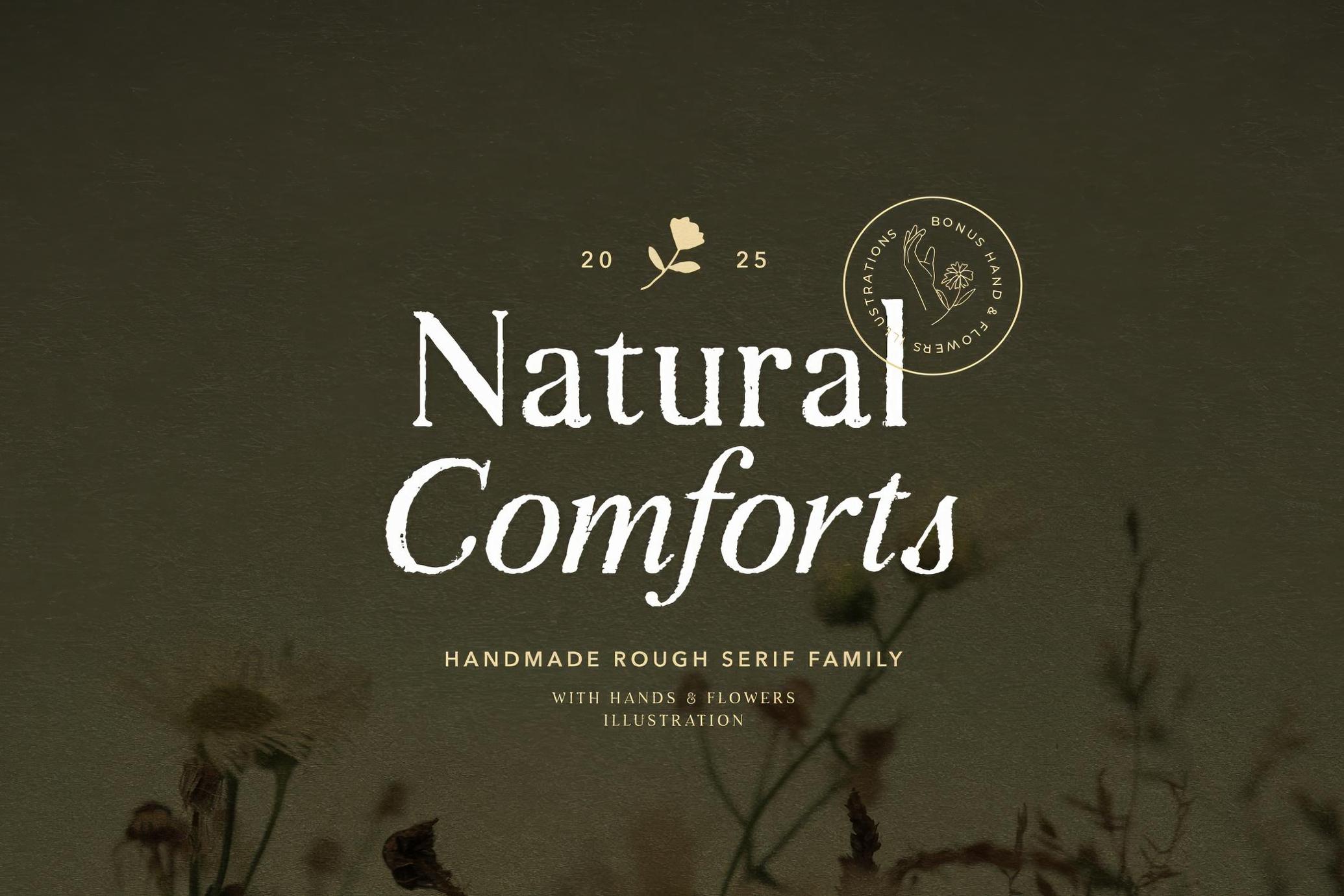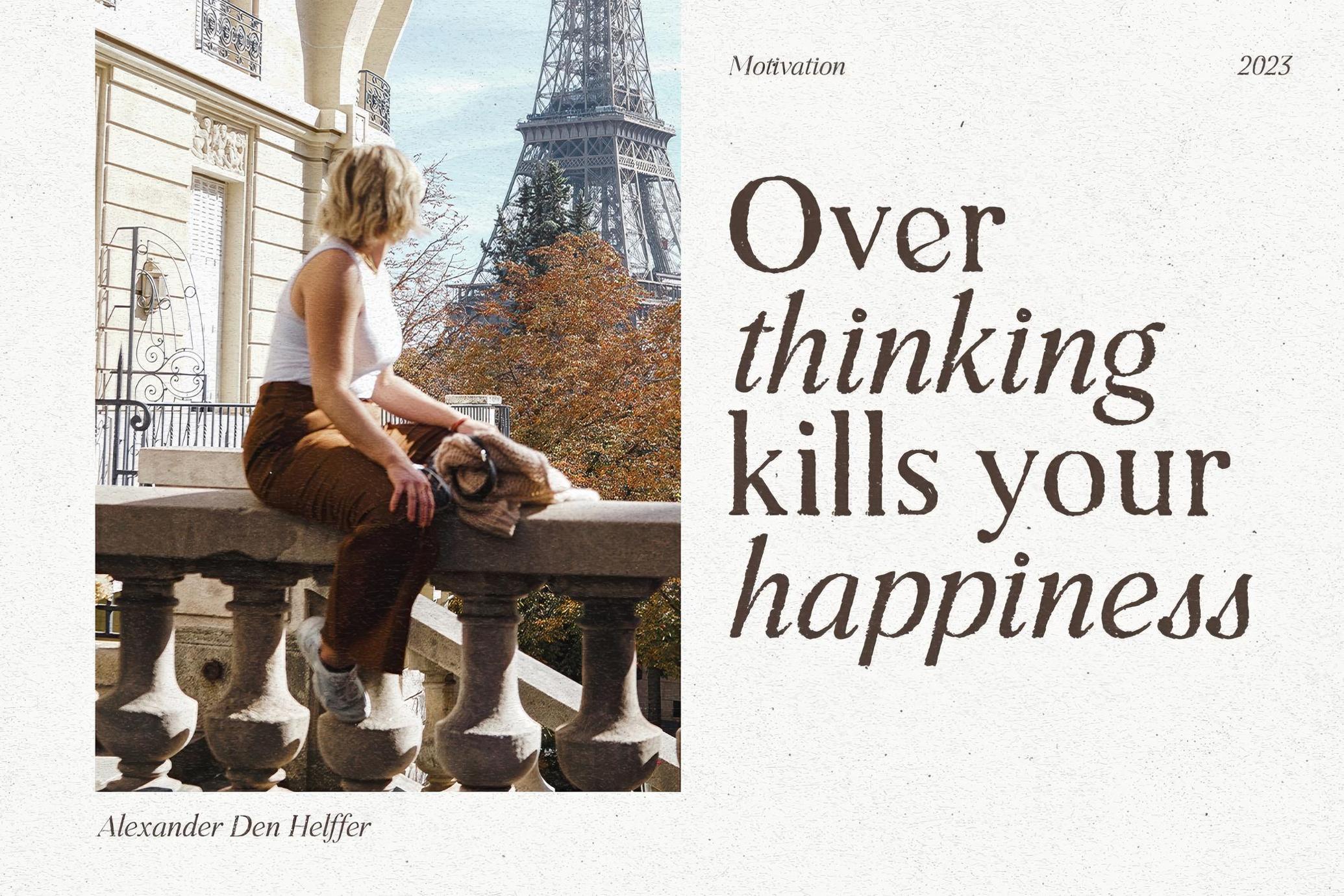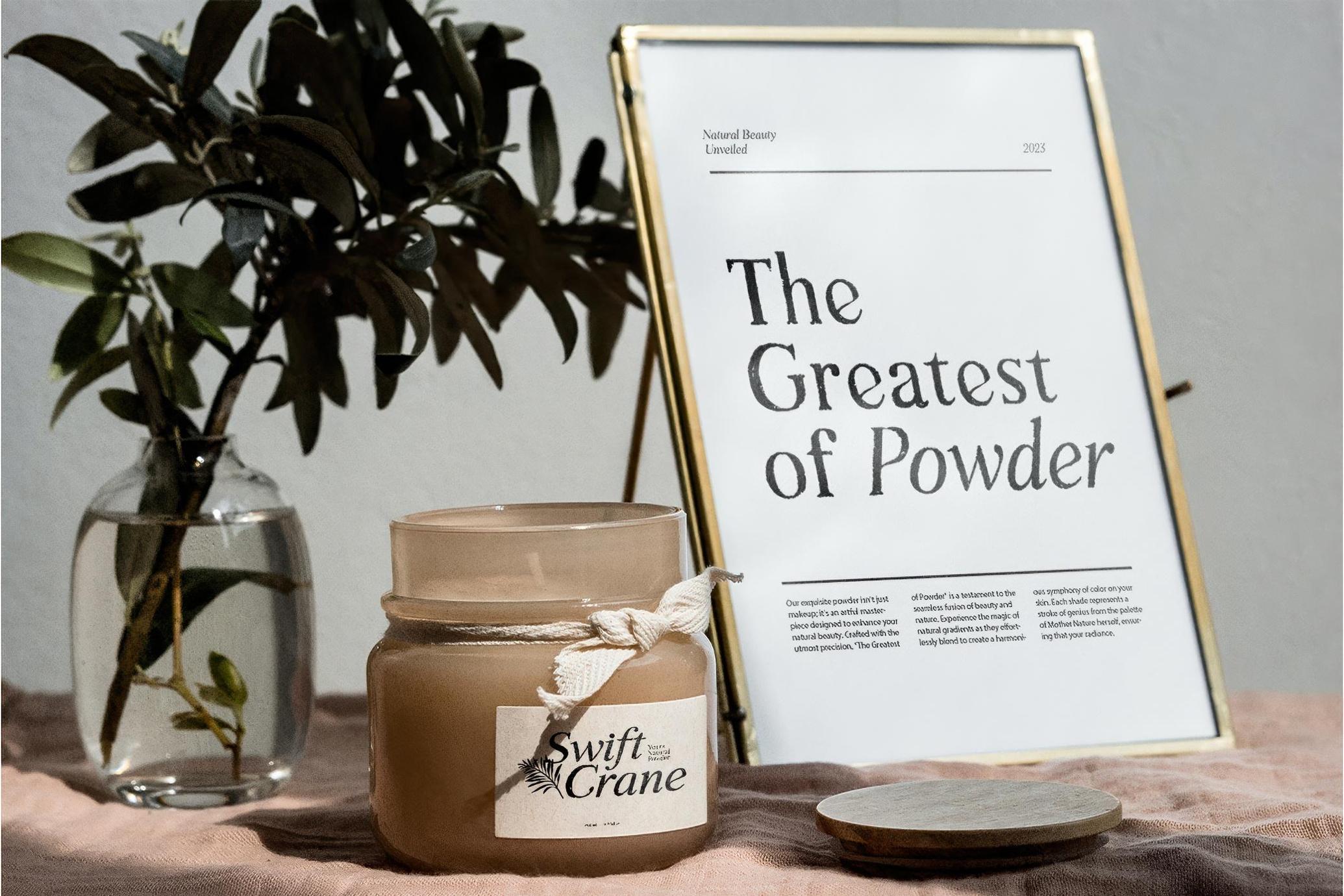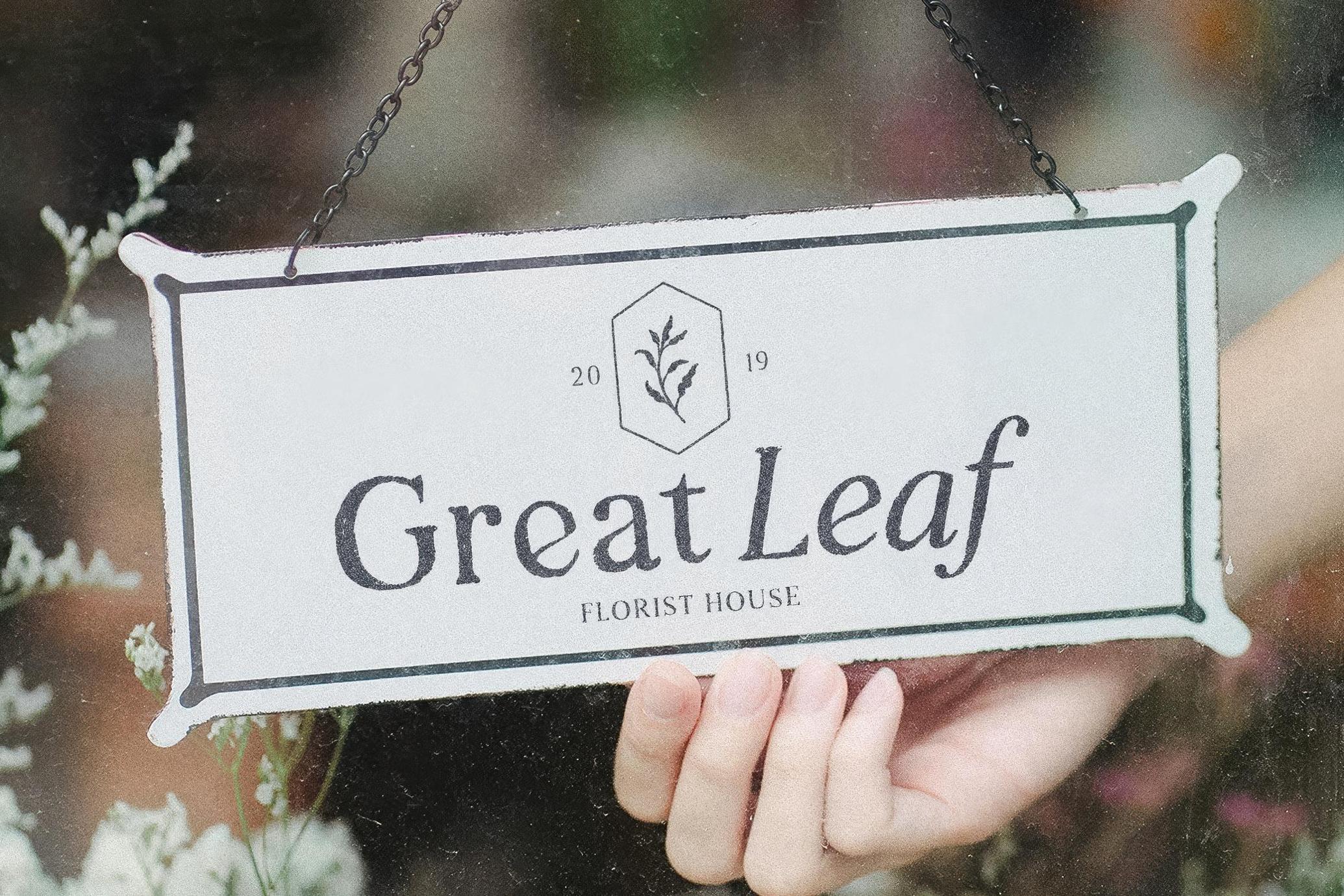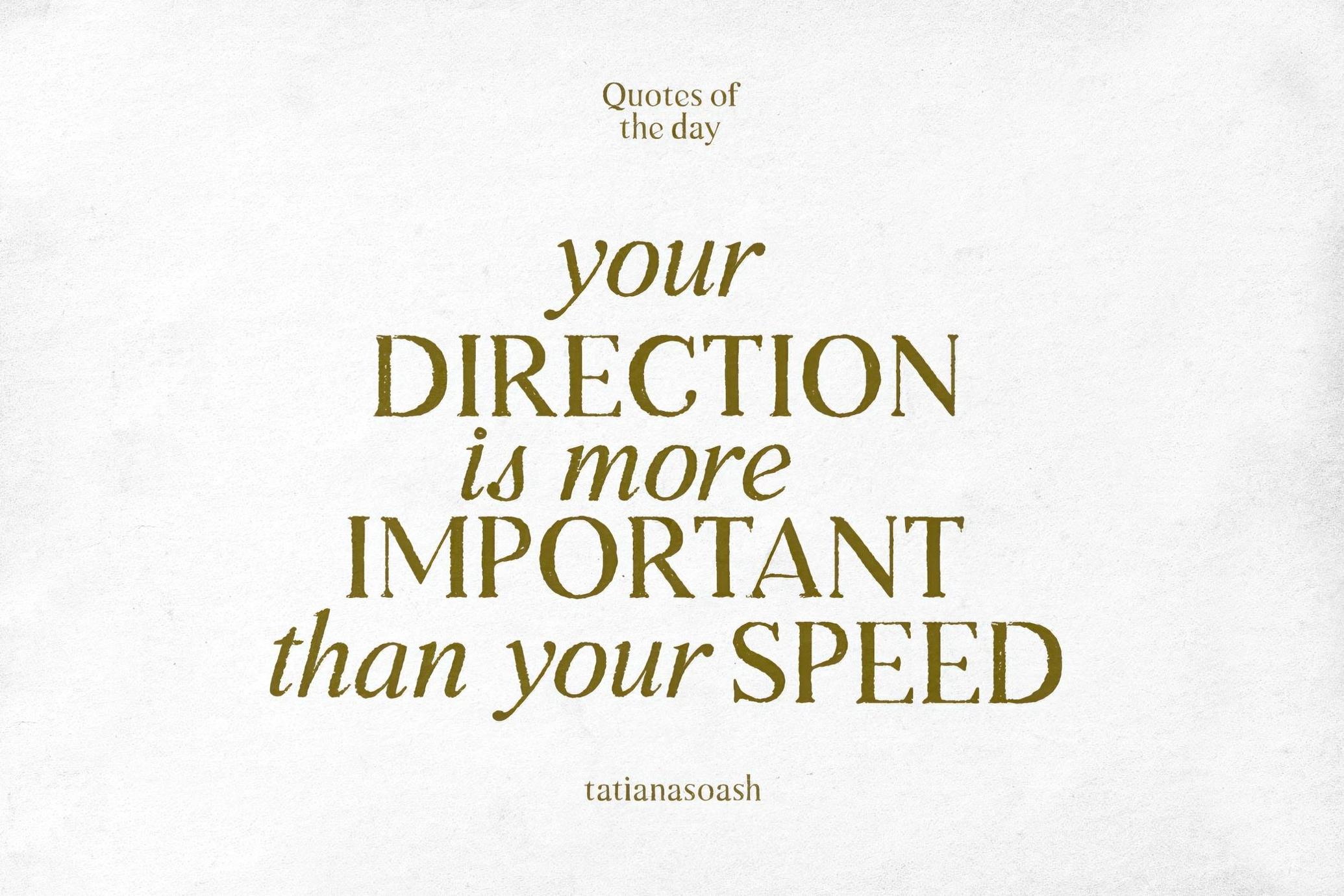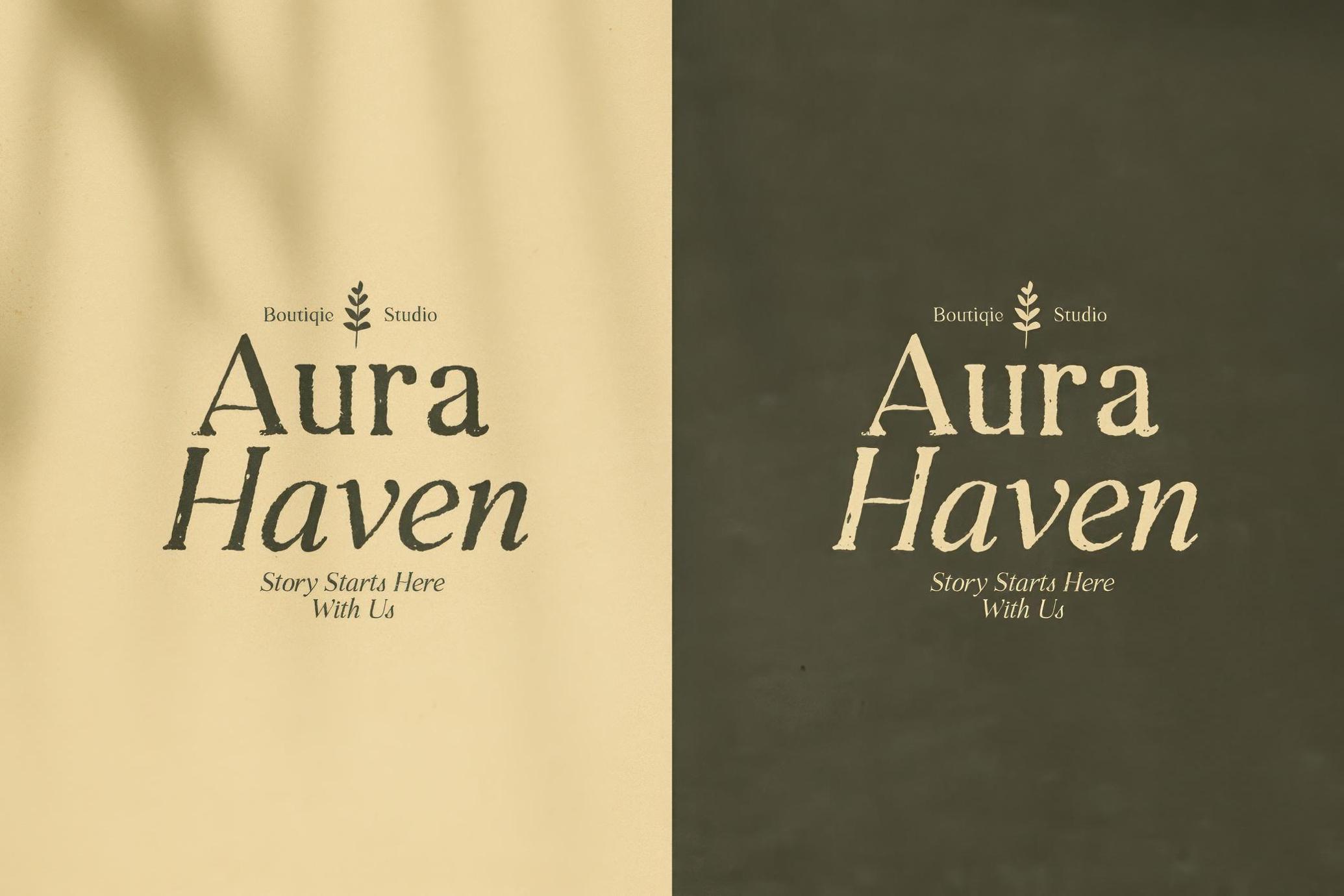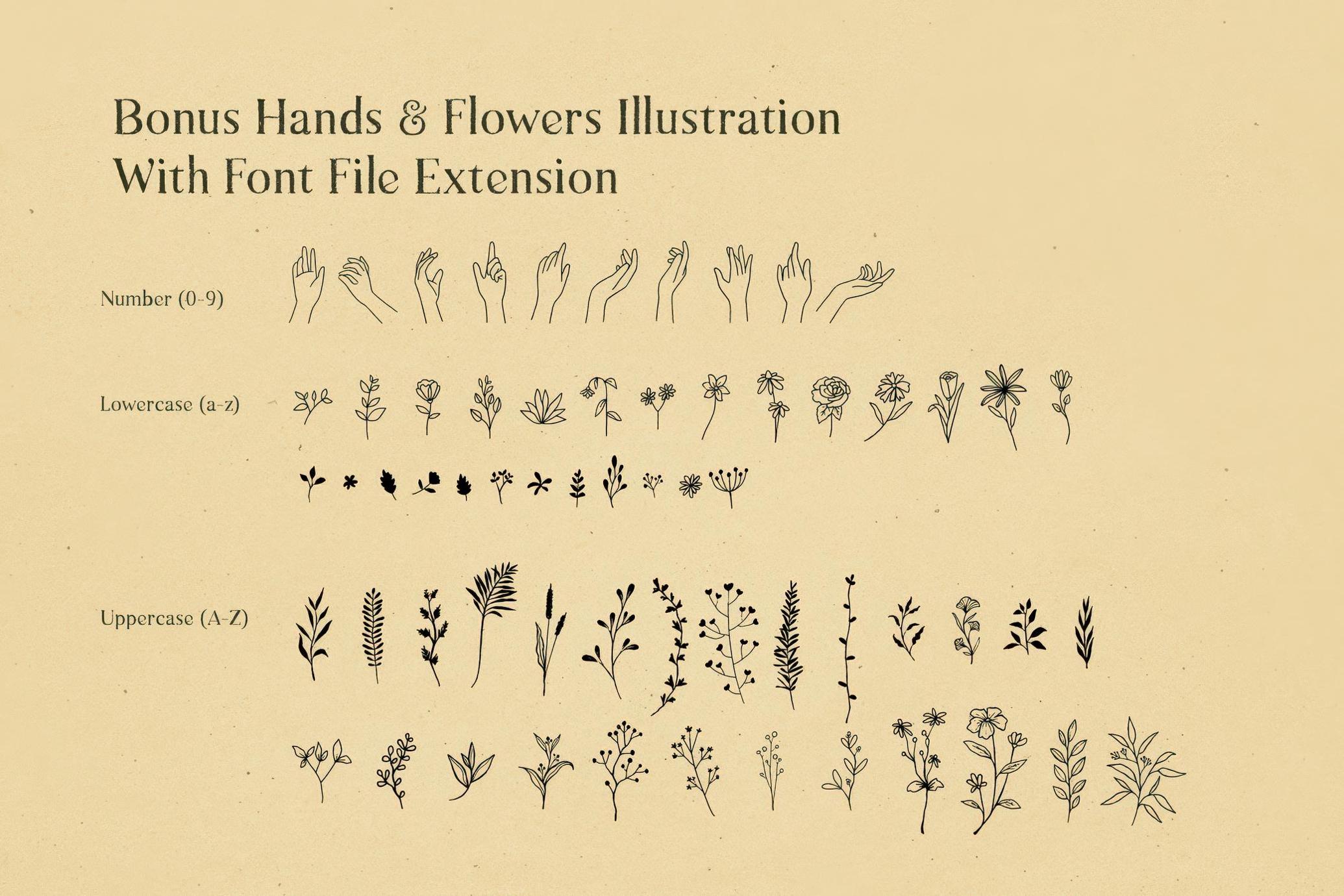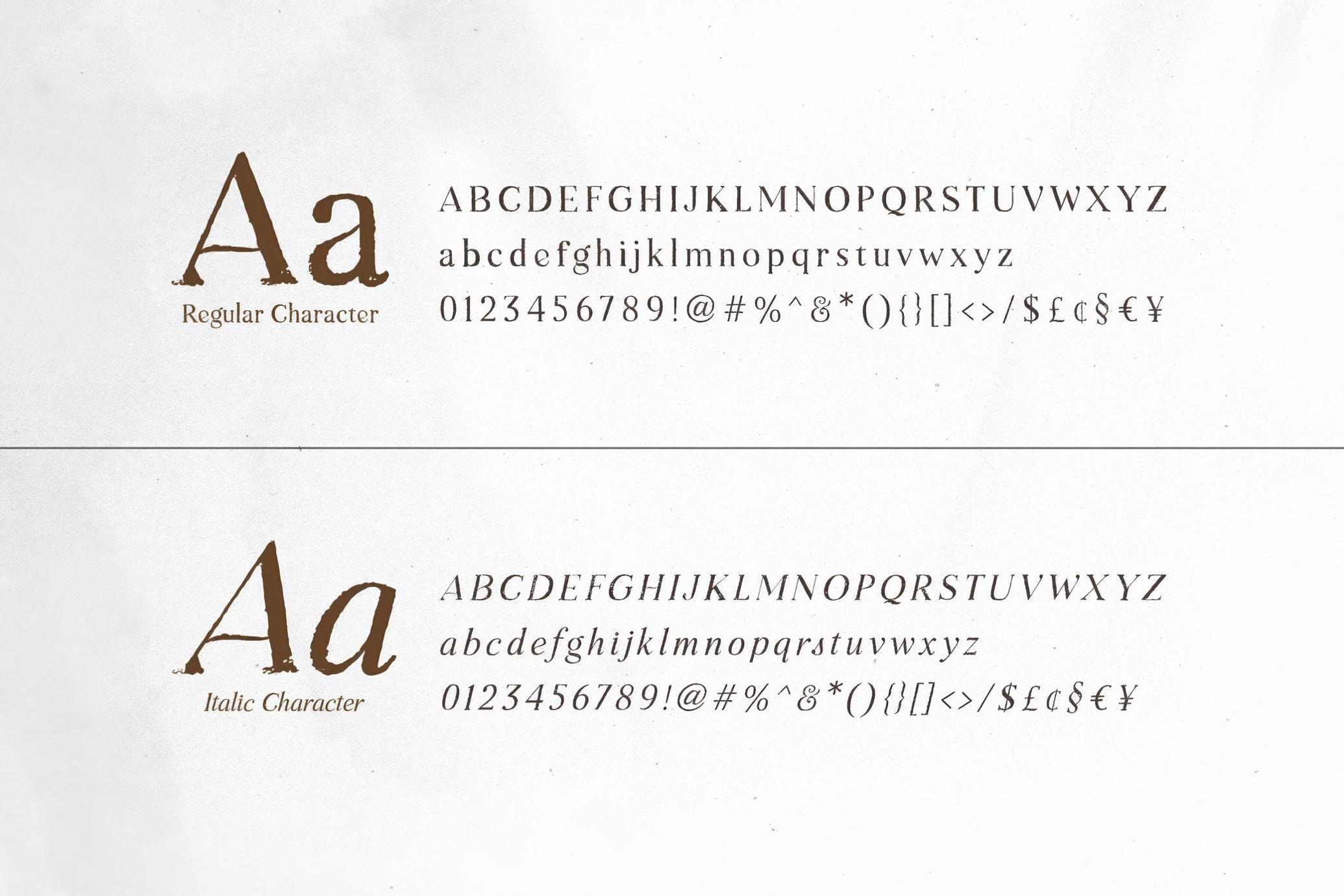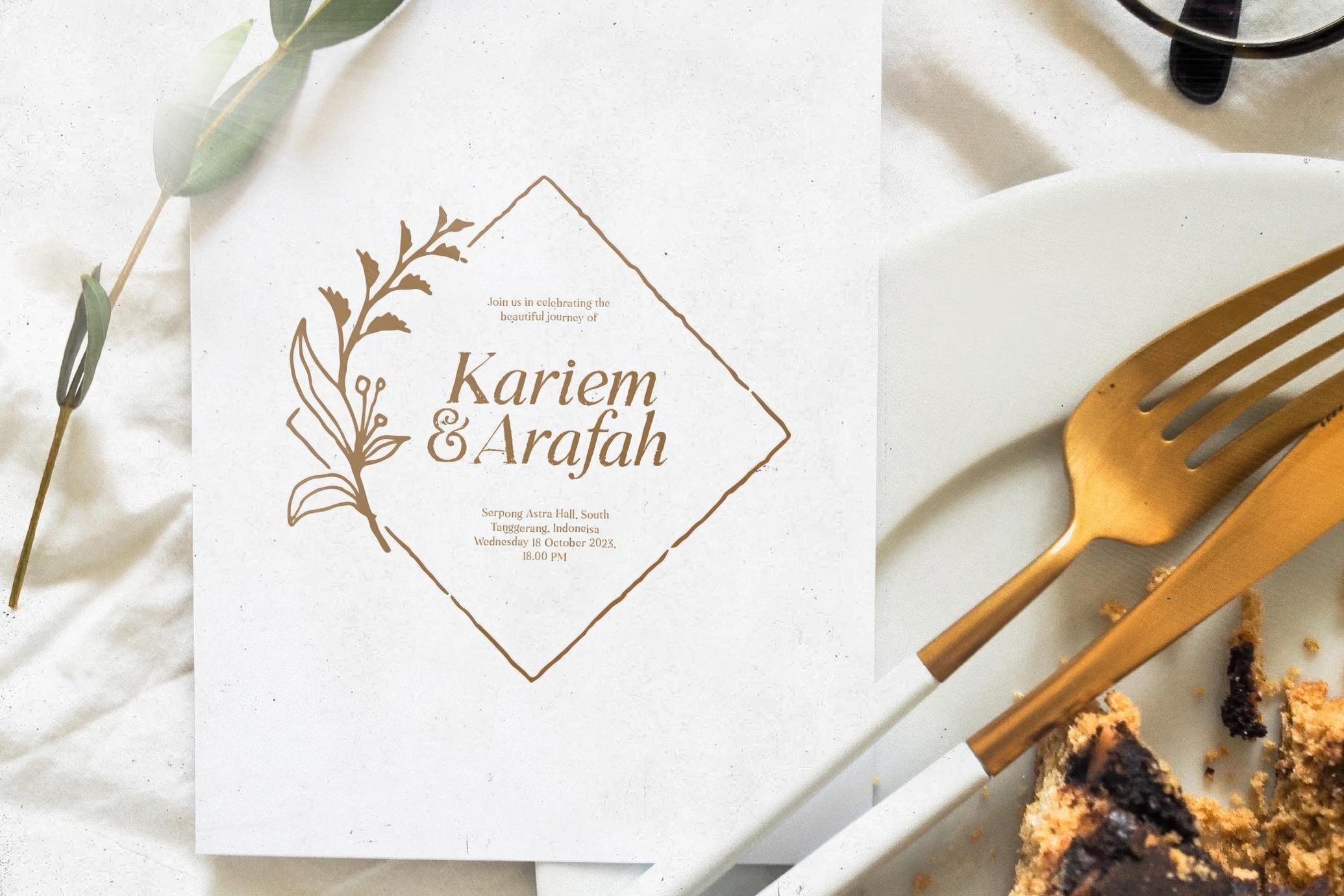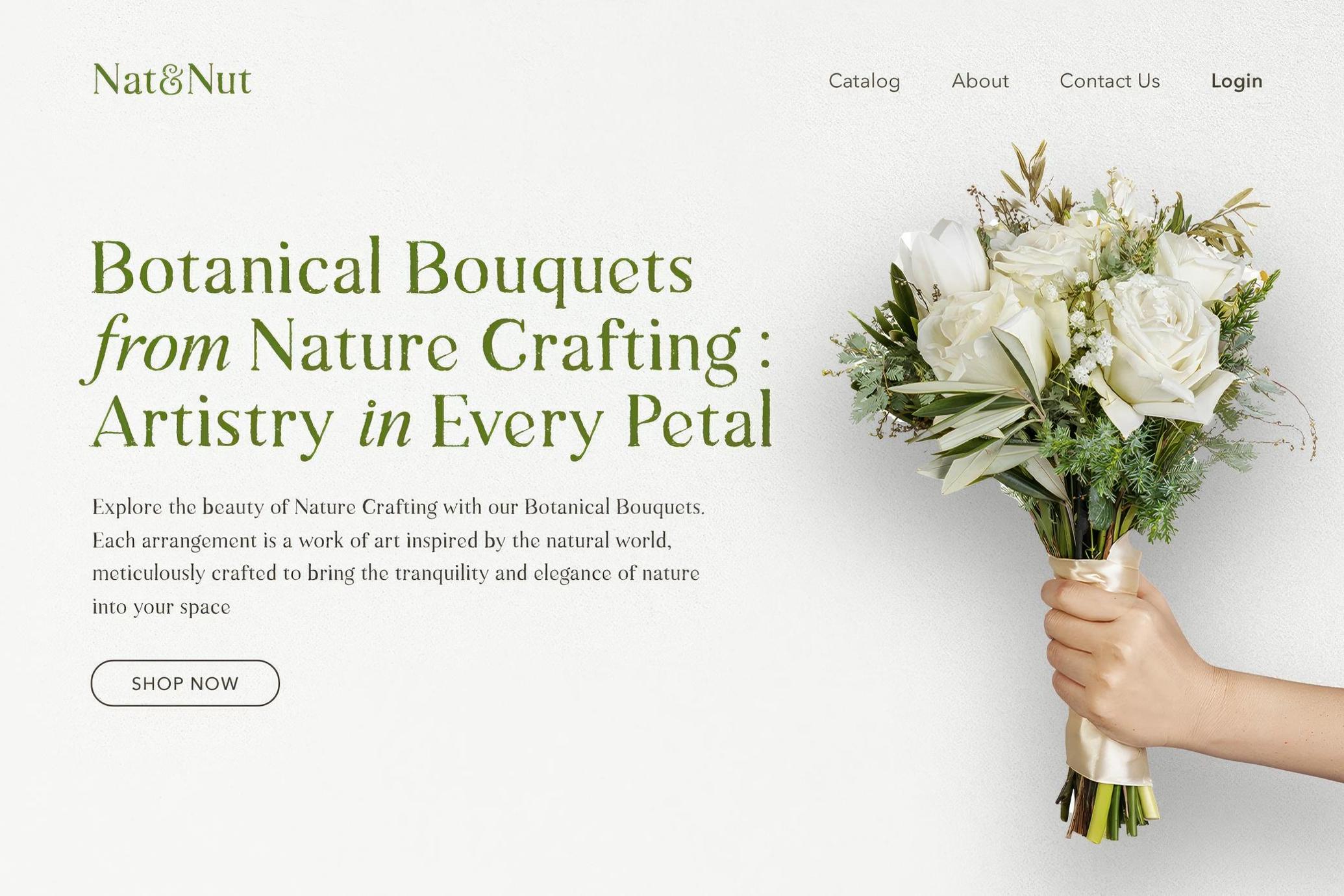
Natural Comforts — Rough Serif
Natural Comforts speaks in a measured tone — graceful, deliberate, and composed. This hand-drawn serif family carries the gentle irregularity of ink on textured paper, balancing refinement with a trace of the human hand. Its subtle contrast and soft edges make it an ideal choice for projects that value calm over noise, and tactility over gloss.
Suited for wedding stationery, lifestyle branding, boutique packaging, mindful editorial layouts, and artisanal product labels, the font comes with full multilingual support. The family includes regular and italic styles, complete with uppercase, lowercase, numerals, and punctuation. As a thoughtful bonus, you’ll find a collection of hand and flower illustrations, delivered in font format—ready to weave seamlessly into logos, packaging, or any project that calls for a handmade touch.